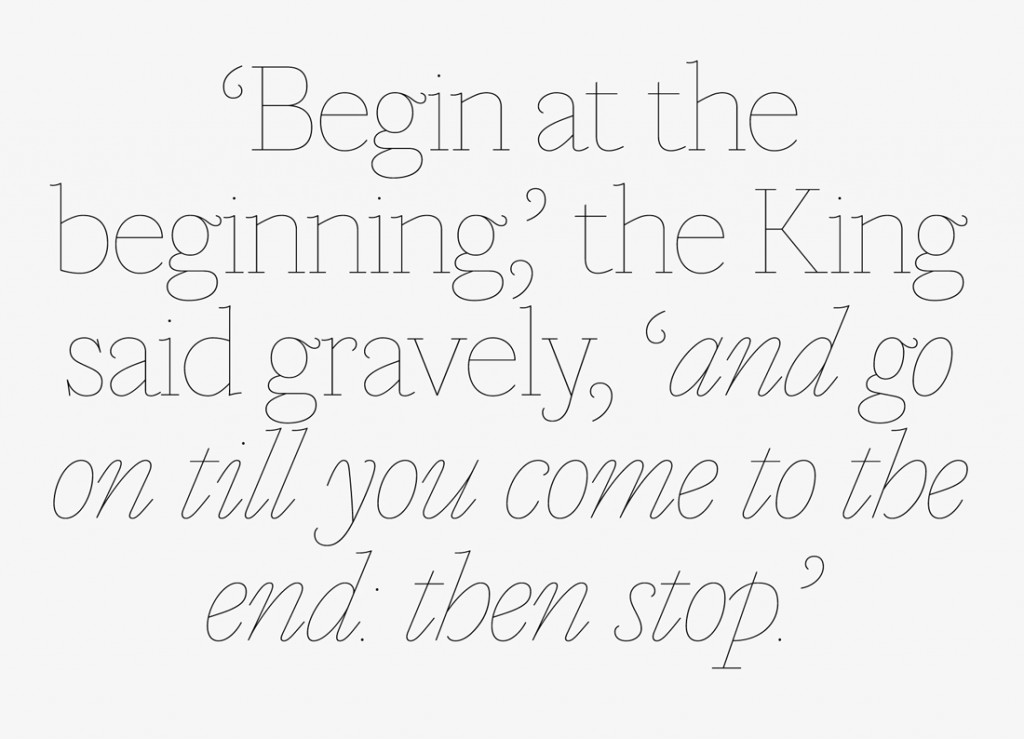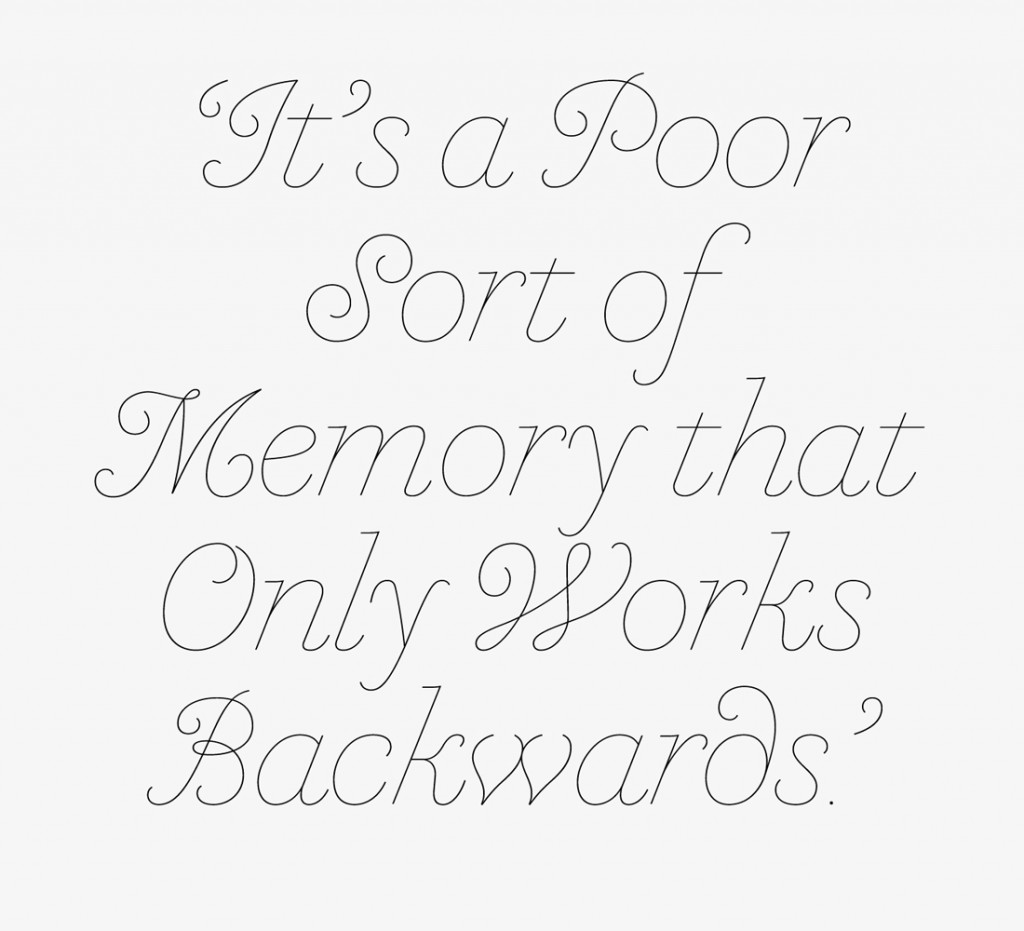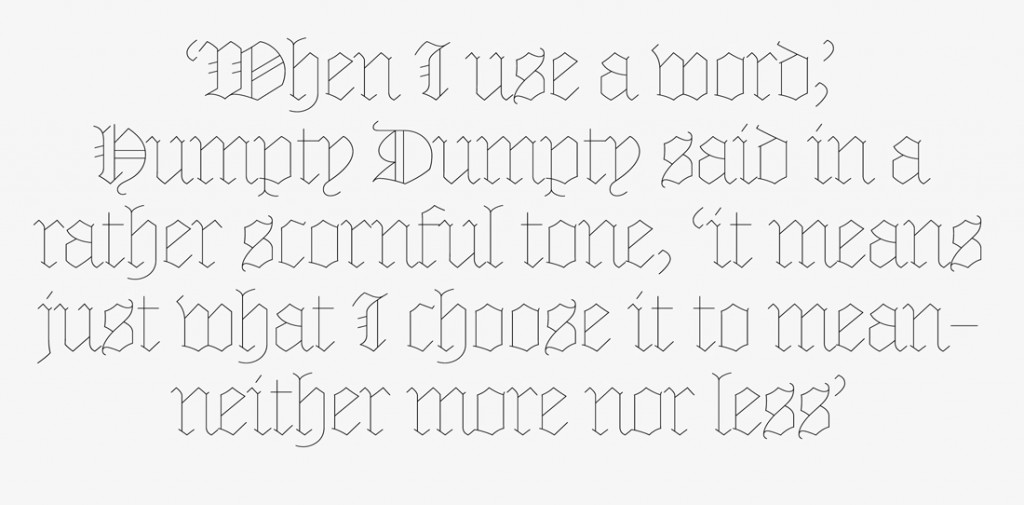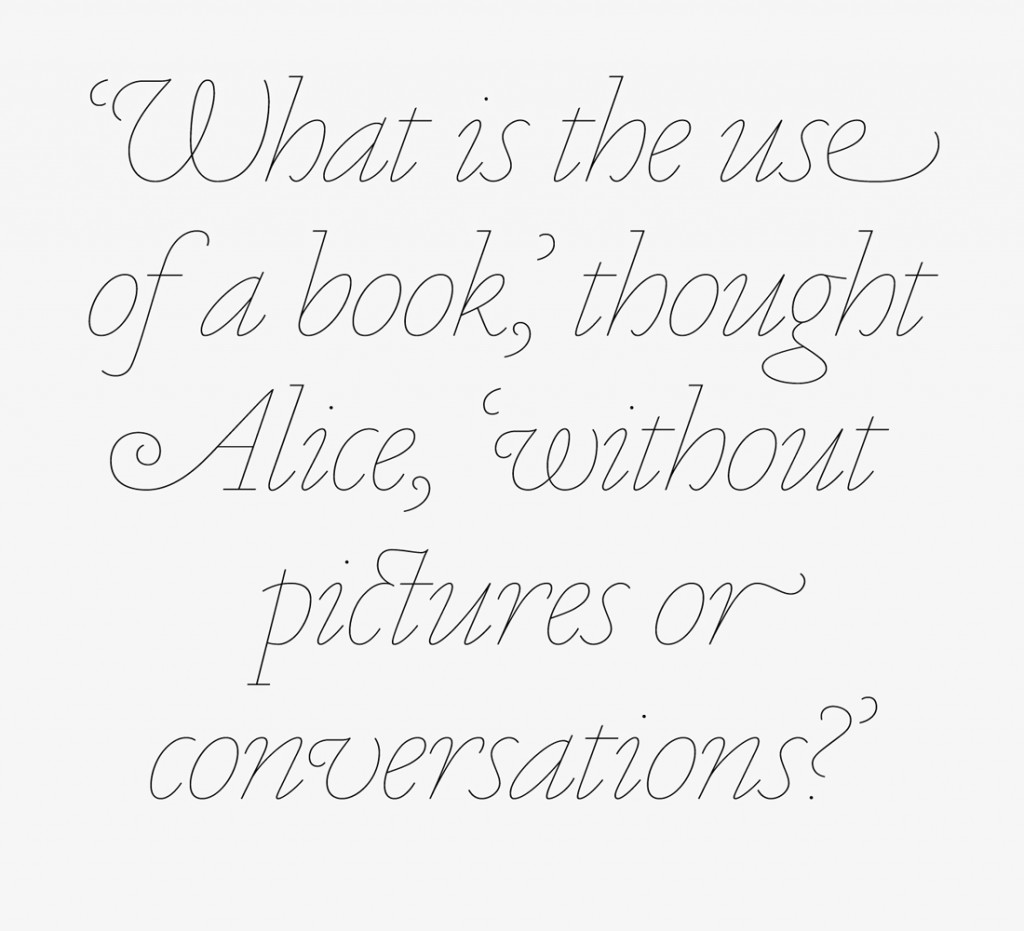
Name: Marian
Designers: Paul Barnes, Miguel Reyes, and Sandra Carrera
Foundry: Commercial Type
Release Date: 2012,Marian; 2014, Marian Text
Marian is a crazy quilt of an idea that should never work, but somehow it does. Conceived by designer Paul Barnes as “part history lesson, part conceptual art, and part loving tribute to the great punchcutters of the past who continue to inspire contemporary type design,” Marian revives nine serif styles throughout history, from 16th-century Renaissance up to the early 19th-century Scotch Roman. It strips the letterforms down to skeletal structures, rendering them as hairline slab serifs of nearly uniform weights to reveal their underlying bone structure.
Its first release in 2012 was meant only for headline use, and in 2014 Reyes and Carrera collaborated with Barnes to create Marian Text, a font family comprised of an old style, a transitional, a modern, and a blackletter for use at smaller sizes. A carefully conceived mathematical ratio of 100:26 means that text set in 100pt Marian matches 26pt Marian Text in stroke weight, though the designers recommend a 100:20 ratio for maximum optical harmony.
Why’s it called Marian? For this eclectic typeface Barnes wanted a name with multiple historical and musical references, from Robin Hood’s Maid Marian, to the national symbol of the French Republic, to Marianne Faithfull and various songs by Leonard Cohen, the Human League, and Sisters of Mercy.
What are its distinguishing characteristics? Marian’s paper-thin strokes reflect the feel of her historical predecessors, while also lending a strange otherworldly quality of their own. With styles that vary widely in appearance, the type family nevertheless holds together beautifully as a unit.
What should I use it for? Marian is the double black diamond trail of type. Even its designers allow that it might pose a challenge for the uninitiated, but in the hands of a skillful typographer it creates stunning effects. Try it as an airy headline or a pull quote to add some breathing room to a densely set page. Marian Text uses the same overall guiding design principles to provide variety within the same slightly historical feel.
Who’s it friends with? Ultra thin Marian looks good next to sans serif pals with a little meat on their bones, like the heavier weights of Graphik or Gotham. And of course it looks great paired with the serif typefaces that inspired each family: Marian 1571 with Granjon or Matthew Carter’s Galliard. Mix and match at will.